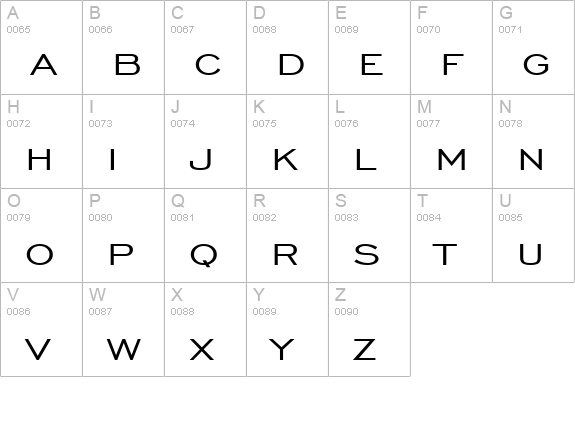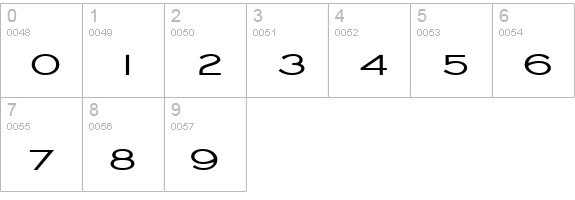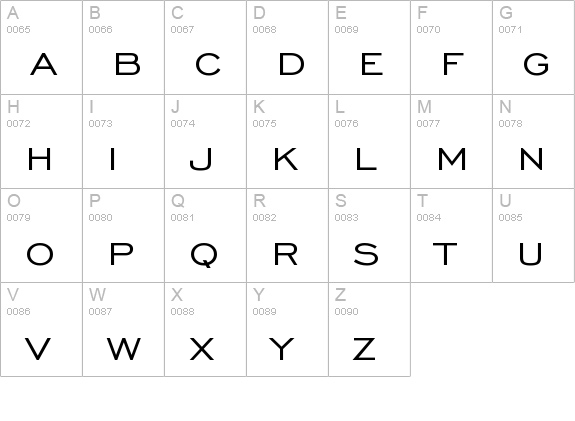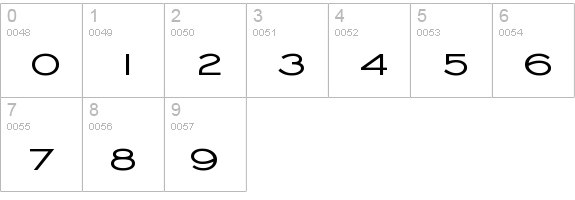
Chisel Wide Normal is the standard, neutral, extended-width variant in the Chisel typeface family \xE2\x80\x94 well suited to general body text, paragraphs, and standard typographic work.
Chisel Wide Normal font is a versatile and modern typeface that exudes strength and sophistication. With its bold lines and sharp edges, this font is perfect for creating impactful designs that demand attention. Whether you're working on branding, advertising, or editorial projects, Chisel Wide Normal font will make a bold statement. Best of all, Chisel Wide Normal font is available for free download at FontsMarket.com. So you can easily access this stylish font and enhance your projects with its striking presence. Don't miss out on the opportunity to add this dynamic font to your design arsenal. Download Chisel Wide Normal font today and elevate your creations to the next level.